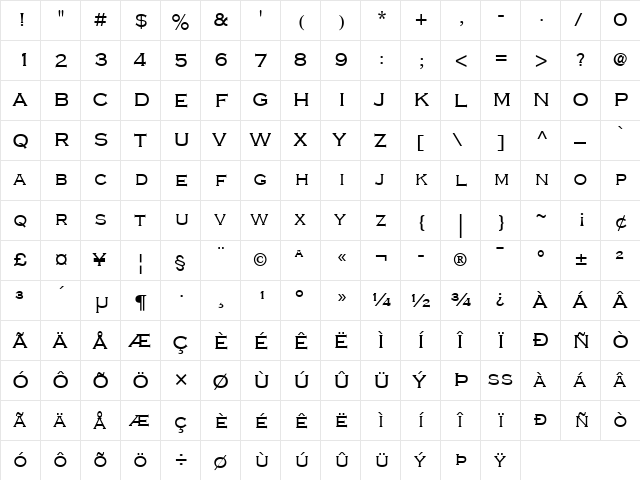
Copperplate LT 32bc Regular Font Preview
Copperplate LT 32bc Regular
Design Context for Copperplate LT 32bc Typeface
Copperplate LT 32bc takes a measured approach to typography — its balanced proportions and neutral character make it a reliable workhorse for both digital and print work. Its slender proportions lend an understated elegance to any composition.
Pro Tip: Pair Copperplate LT 32bc with a font of contrasting weight or personality to build a more expressive typographic hierarchy.